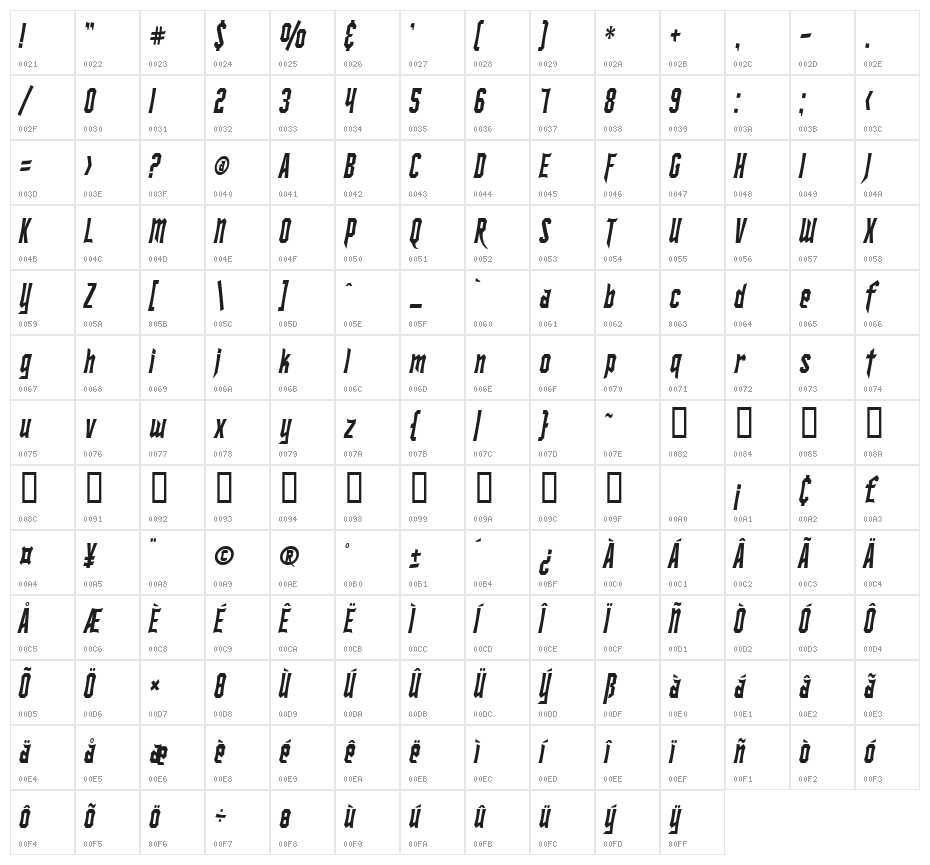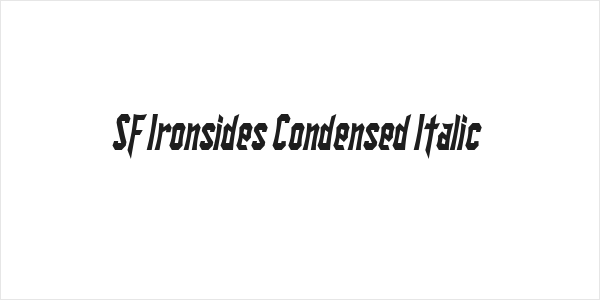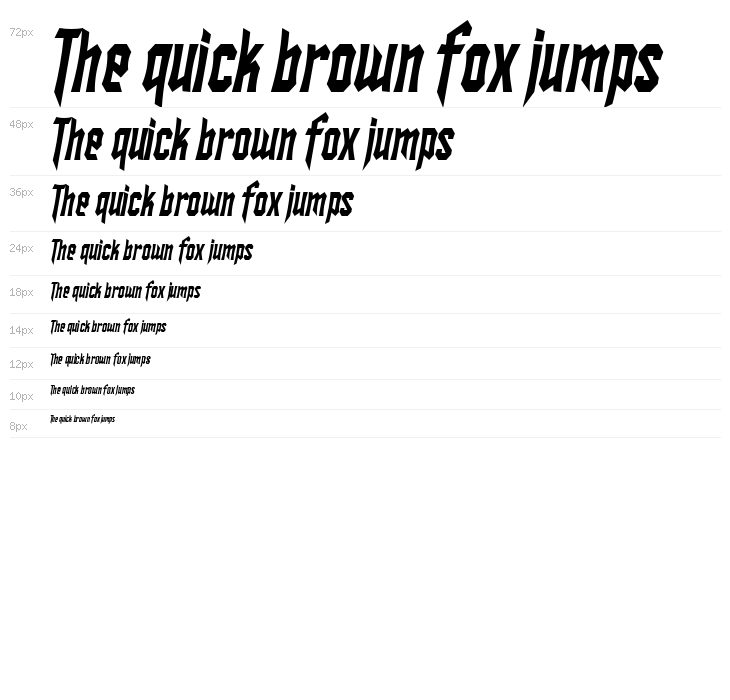
SF Ironsides Condensed Italic Font
SF Ironsides Condensed Italic Description
This font features a bold and dynamic design with a strong, angular appearance. The characters are condensed and italicized, giving them a sense of motion and urgency. The uppercase and lowercase letters maintain a consistent style, with sharp edges and a slightly futuristic look. The numbers and special characters are equally bold, ensuring readability and impact. This font is ideal for projects that require a modern and edgy aesthetic, such as sports branding, action movie posters, or video game titles.
Proposed ProjectsSuitable for sports branding, action movie posters, video game titles, and dynamic advertising.